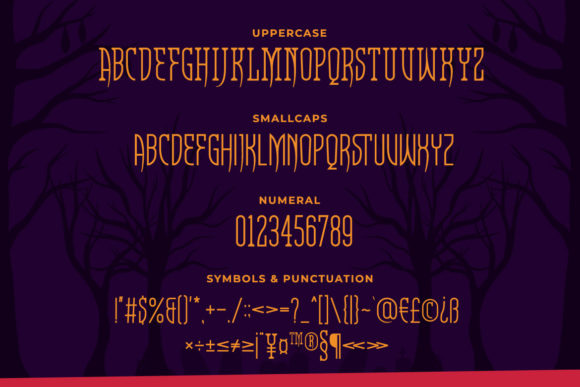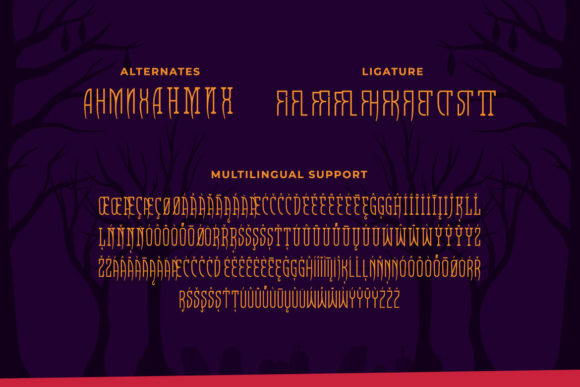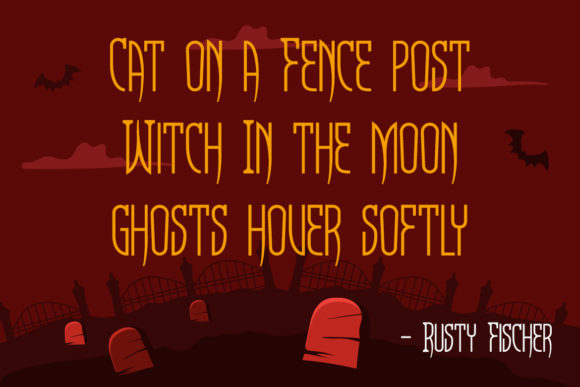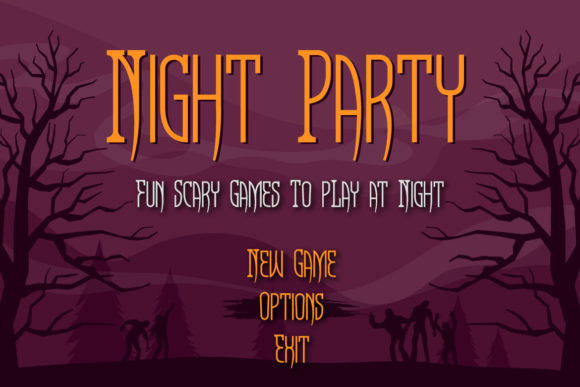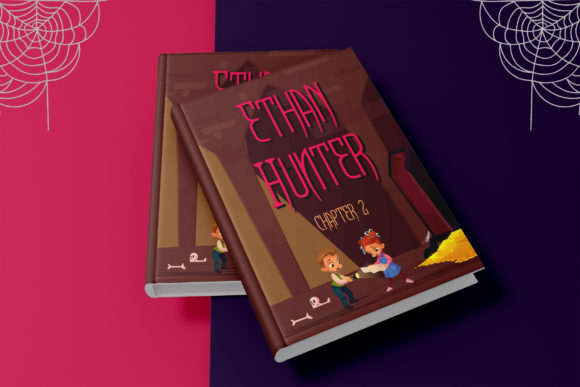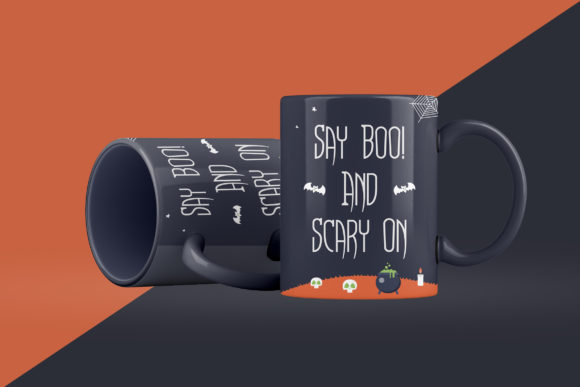
Introduction to Racula Font
Do you remember that moment when you’re brainstorming ideas for a creative project, and suddenly, a spark of inspiration strikes? The words start flowing, and your imagination runs wild. For designers, this feeling is a regular occurrence, but sometimes, it’s the perfect font that can take their ideas to the next level. That’s where the Racula Font comes in – a cool, bold, and uniquely interesting serif font that’s sure to elevate your design game.
With its high-quality design and versatility, the Racula Font is an excellent addition to any designer’s toolkit. Whether you’re working on a letterhead, title, or stationery, this font’s original look will appeal to a wide range of creative projects. Plus, its transparent background makes it a valuable resource for designers who want to add a touch of sophistication to their designs.
Key Features of Racula Font
- High-quality font designed for creative projects with a unique and mysterious aesthetic.
- Features a transparent background, making it ideal for use on dark or gradient backgrounds.
- Designed to be a versatile design resource for use in various creative applications, including graphics, logos, and typography.
- Available in a single font size, with a resolution of 300 DPI, making it suitable for use in both print and digital projects.
- Unique characteristics include a Gothic-inspired design and a range of subtle texture and shading effects.
Honest Review: Racula Font
As a designer, I’m always on the lookout for high-quality design resources that can elevate my creative projects. The Racula Font is one such resource that I’ve recently had the chance to explore. Here’s my honest review.
- ✨ Unique aesthetic: The Racula Font has a distinctive, gothic-inspired design that’s perfect for adding a touch of elegance to your projects.
- ✨ High-quality glyphs: The font’s glyphs are crisp and well-designed, making it a great choice for both digital and print projects.
- ✨ Transparent background: This feature allows you to easily remove the background of the font, giving you more flexibility when working with images.
- ⚠️ Limited font weights: The Racula Font currently only comes in a limited range of weights, which may not be ideal for projects that require a wide range of font weights.
- ⚠️ Not suitable for small text: Due to its unique design, the Racula Font may not be the best choice for small text sizes, where legibility can be a concern.
The Racula Font is a versatile design resource that can be used for a variety of purposes, including:
- Print and digital designs
- Social media graphics and ads
Alternatives to Racula Font